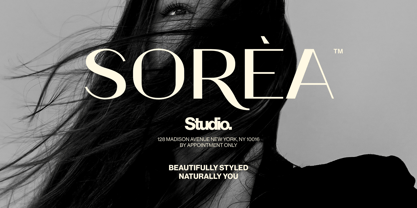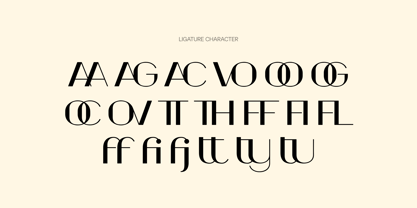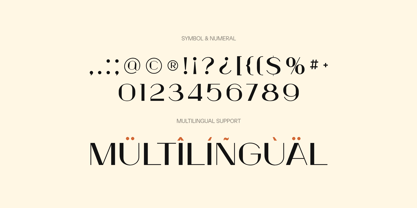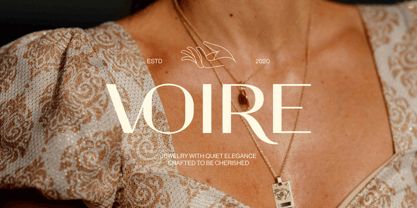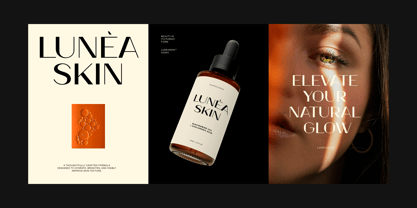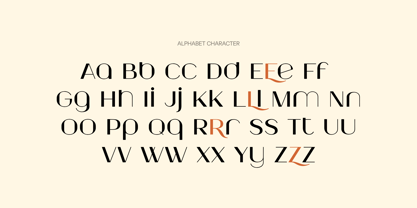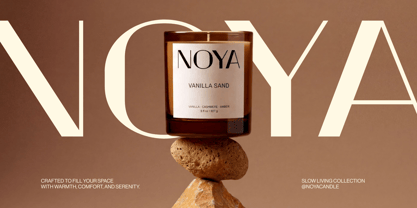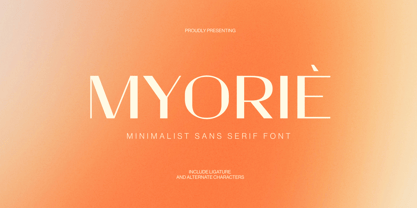
Myorie
par Imoodev
La famille de polices Myorie a été conçue par Aulia Savira Putri et publiée par Imoodev. Myorie contient 1 styles. En savoir plus sur cette famille
Introduce a touch of modern luxury and quiet sophistication to your designs with Myorie, a minimalist sans serif display font engineered for aesthetics. Balancing striking contrast between thick and thin strokes, geometric proportions, Myorie brings an immediate sense of quiet luxury, editorial prestige, and aesthetics to any creative project.
Whether you are building a boutique brand identity, designing sleek luxury brand identity, logo, editorial layouts, or product packaging. Myorie offers the perfect blend of structural minimalism and artistic flair.